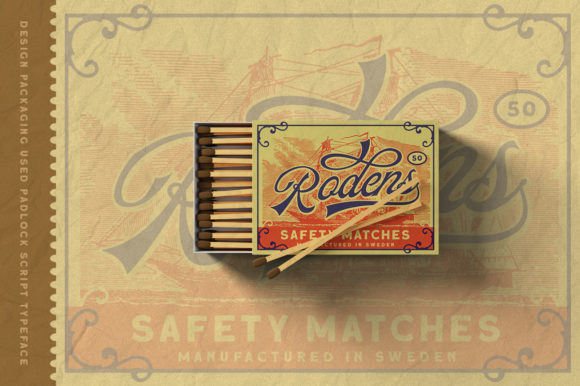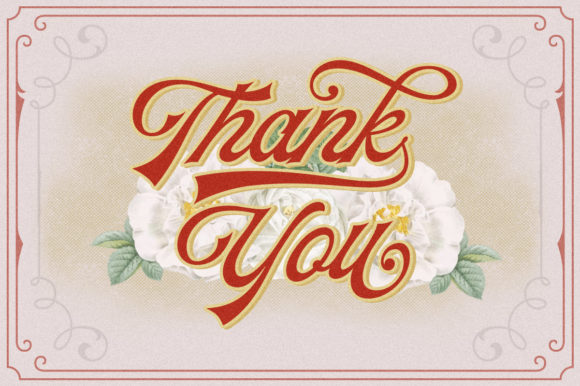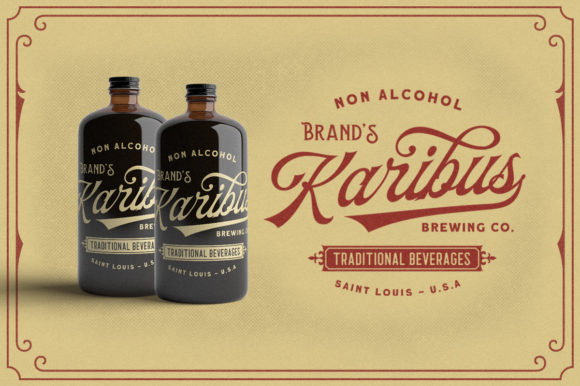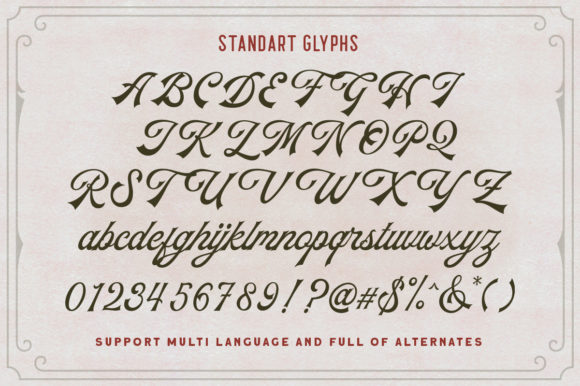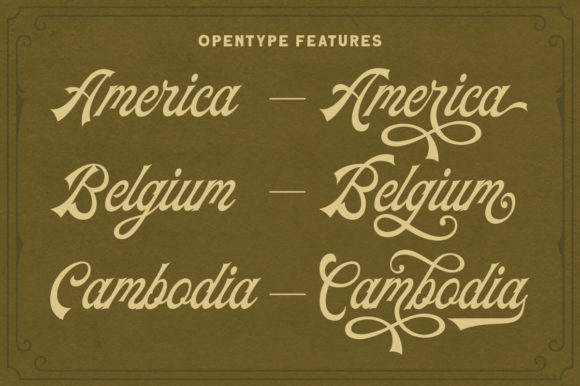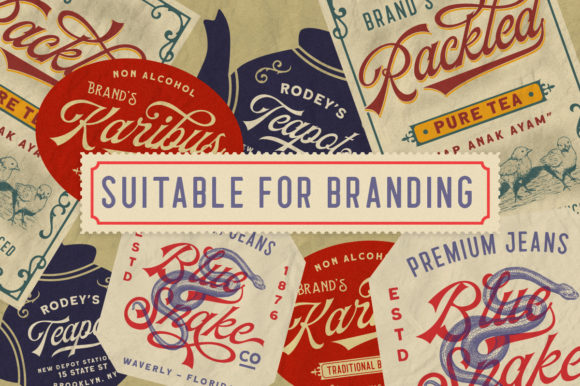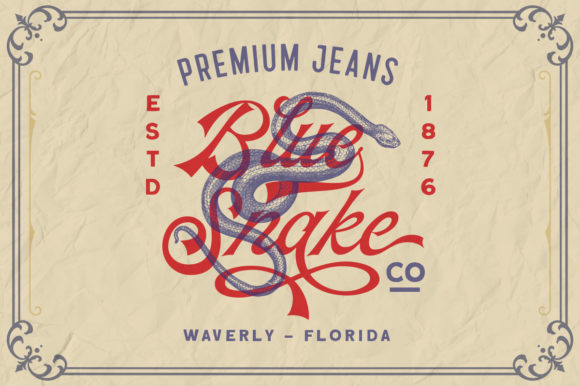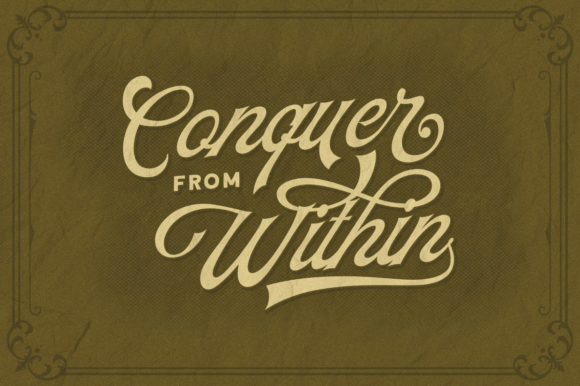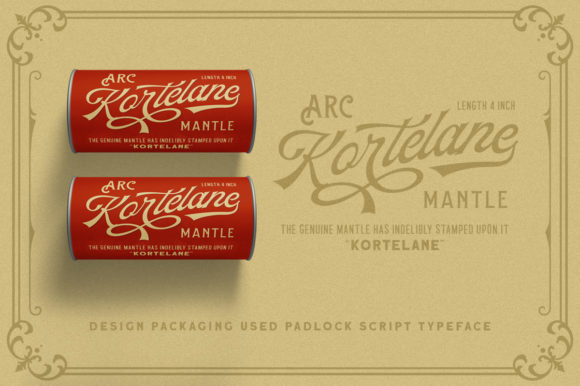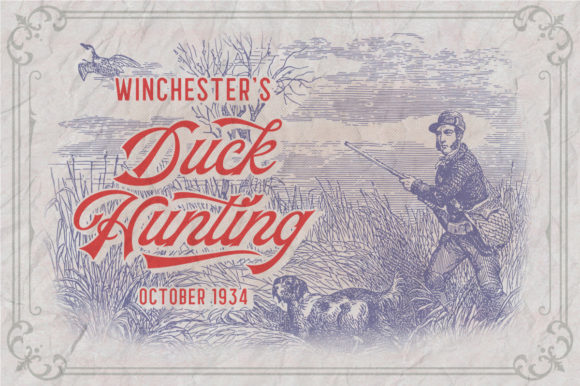
The Padlock Font
About The Padlock Font
The Padlock is a friendly and unique script font. It has a nostalgic feel that makes it perfect for any project with retro or vintage theme.